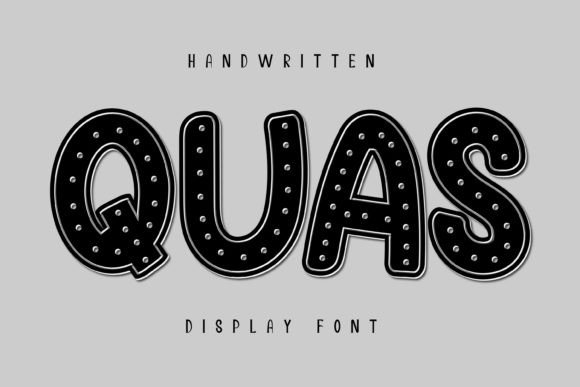
Prepare to fall head-over-heels for Quas Font, the ultimate Valentine's Day font that will ignite your designs with love.
Quas, crafted with the utmost passion, exudes an irresistible charm and boldness that will make your creations stand out from the crowd. This groovy and whimsical font is a playful delight, adding a touch of cheer to every letter.
Indulge in the versatility of Quas, a font designed to cater to your every creative whim. Whether you're crafting heartfelt Valentine's Day cards, creating eye-catching social media posts, or adding a personal touch to your wedding invitations, Quas is your go-to font for spreading love through your designs.
Get ready to enchant your audience with the captivating curves and irresistible personality of Quas Font. This is more than just a font; it's a love letter to your creativity, empowering you to express your affection in a truly unique and memorable way.
Let Quas Font paint a picture of love and happiness in your designs, leaving a lasting impression on everyone who encounters your creations.